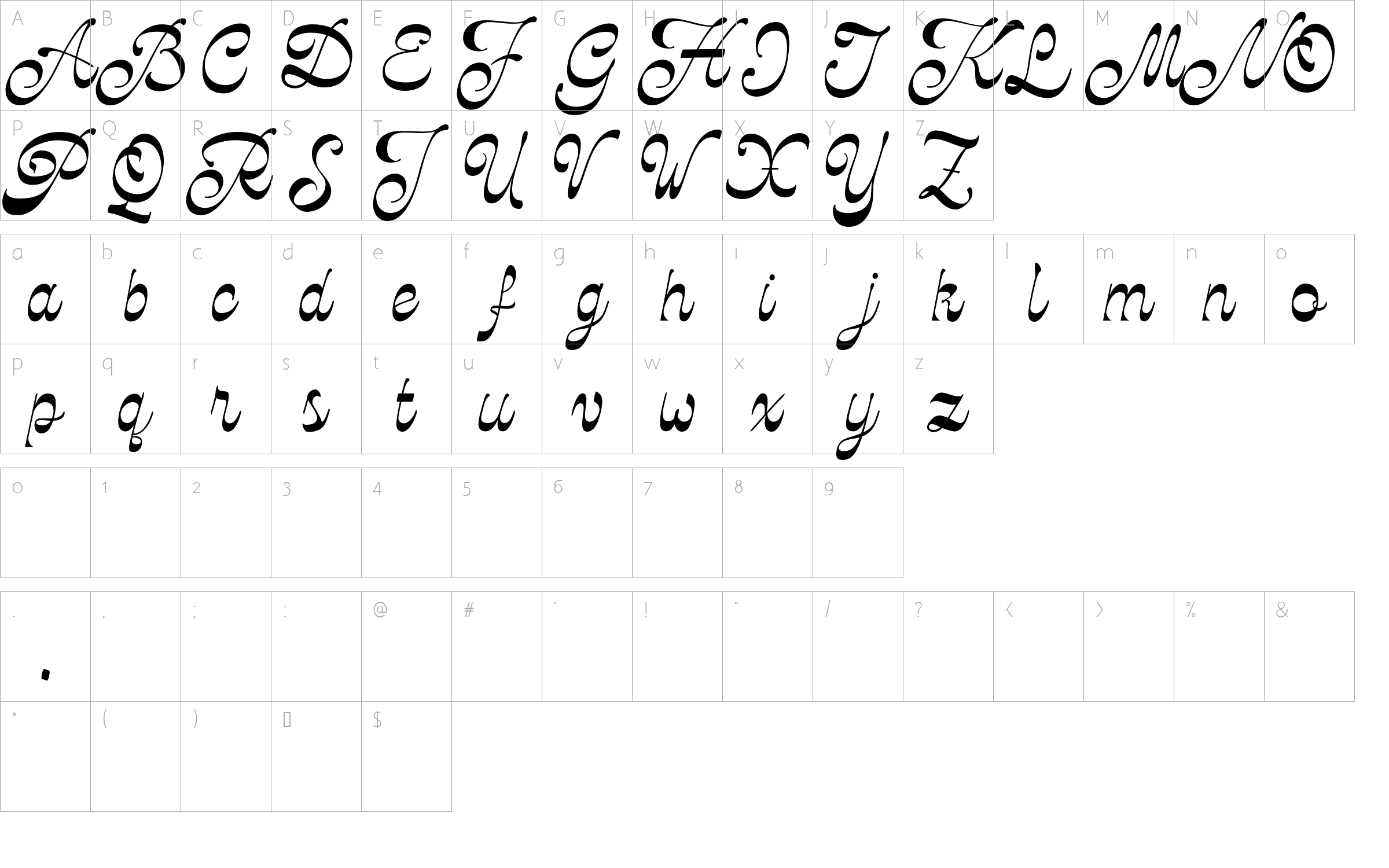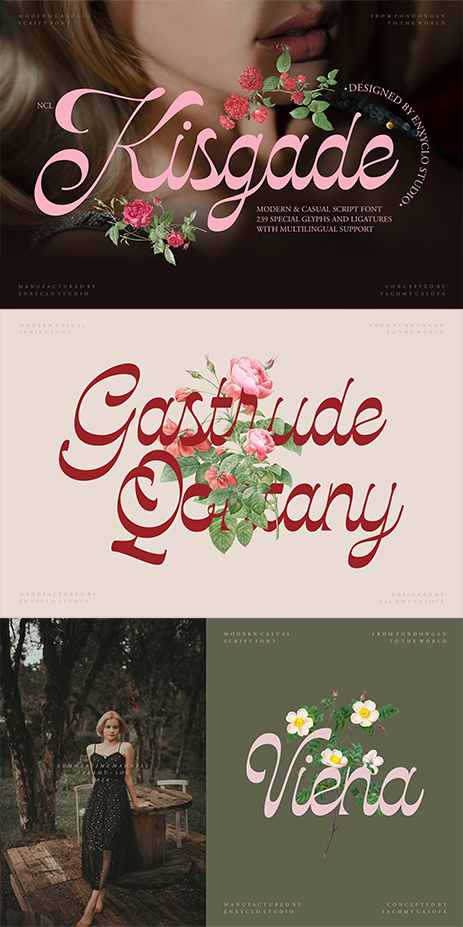
NCL Kisgade Font
Designed by Enxyclo Studio
About NCL Kisgade
NCL KISGADE is a modern and elegant script font. Masterfully designed to become a true favorite, this font has the potential to bring each of your creative ideas to the highest level! It was purposely crafted to be used in large point sizes, although it doesn’t lose its magic in small point sizes. It is perfect for wedding or romantic event, headline, billboard, magazines, website, titles, poster, branding, and logos. No matter the topic, this font will be an incredible asset to your fonts’ library, as it has the potential to elevate any creation. With this beautiful font, absolutely you can make your project stand out from the rest.